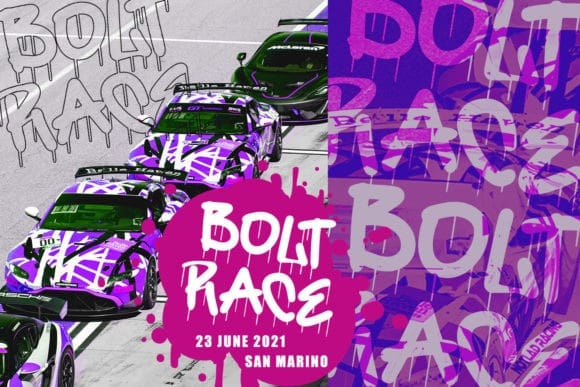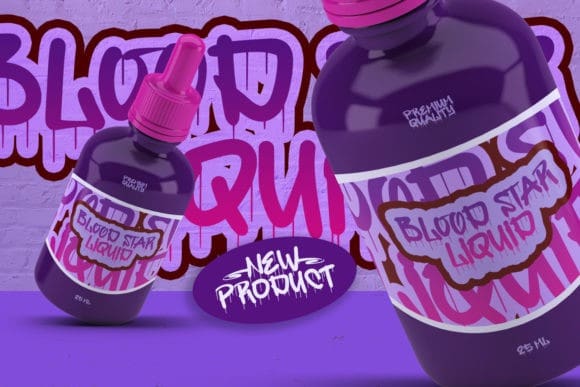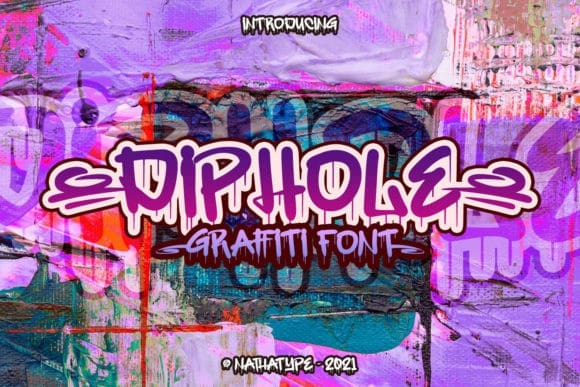
Diphole Display Font
Diphole Display Font, is a dramatic, creepy styled display font, that features a street art vibe. This font is suitable for designs like jerseys, sportswear, skateboard and more.